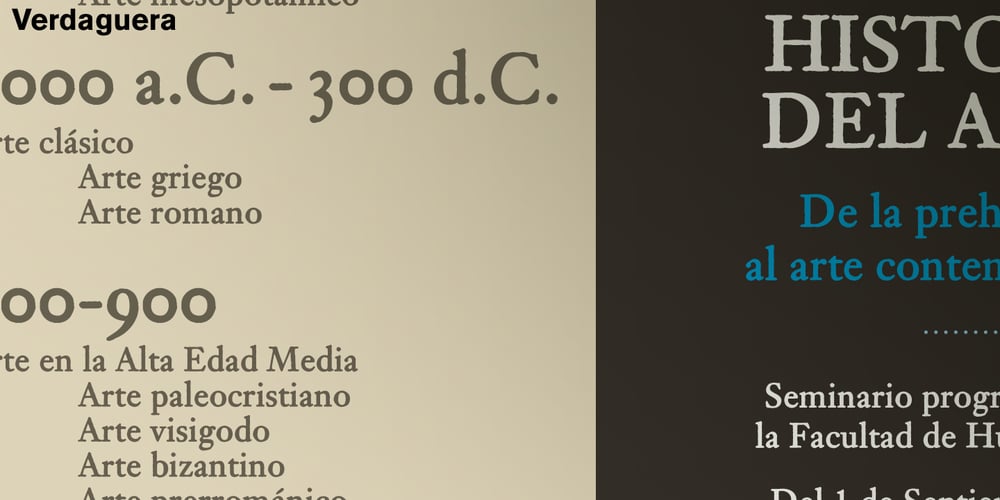
Verdaguera
Verdaguera font
Verdaguera Font Family was designed by Enric Jardí and published by Type-Ø-Tones. Verdaguera contains 1 styles and family package options. Another rebirth: Verdaguera. The all time Catalan people’s choice. Now with a complete set of characters that covers a wide range of latin alphabet languages. Catalan included, of course.